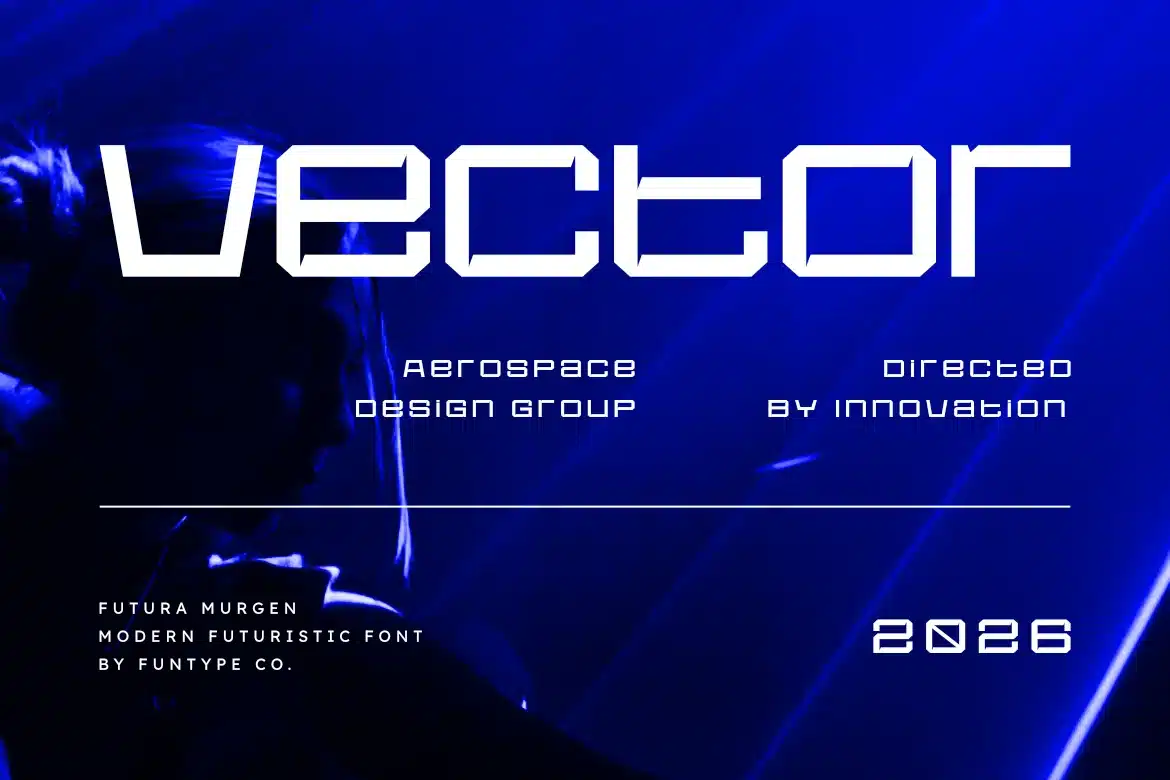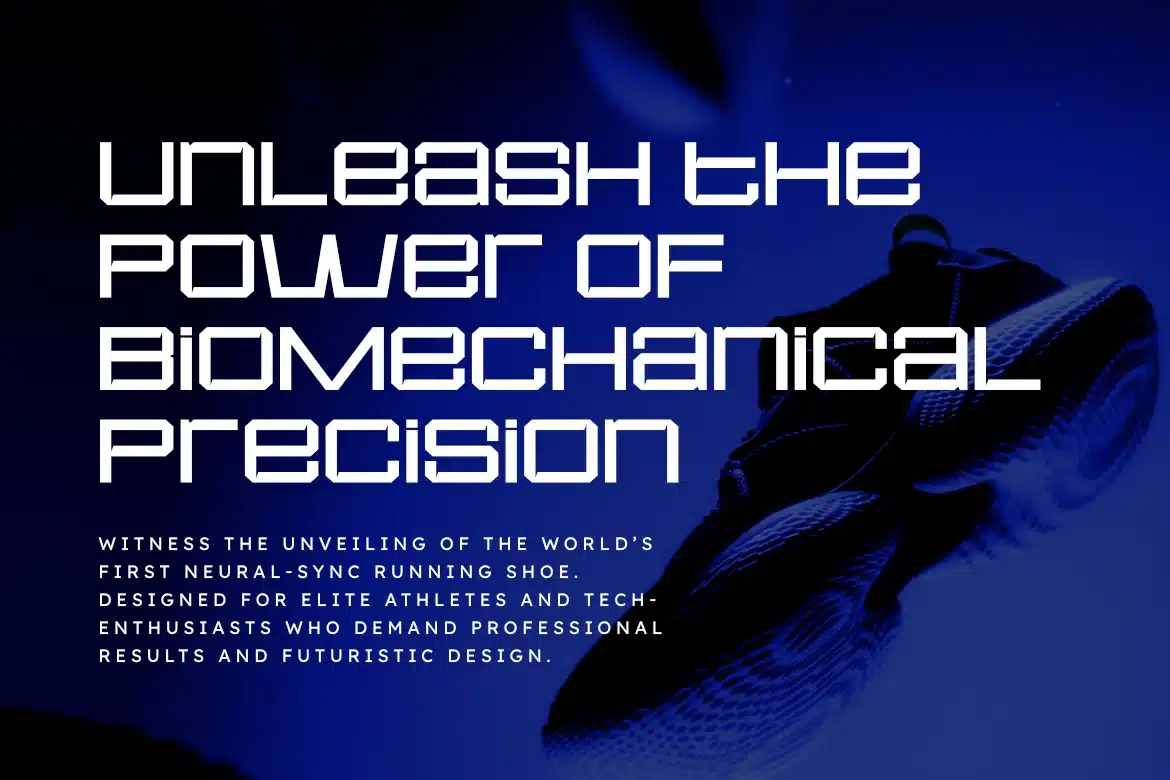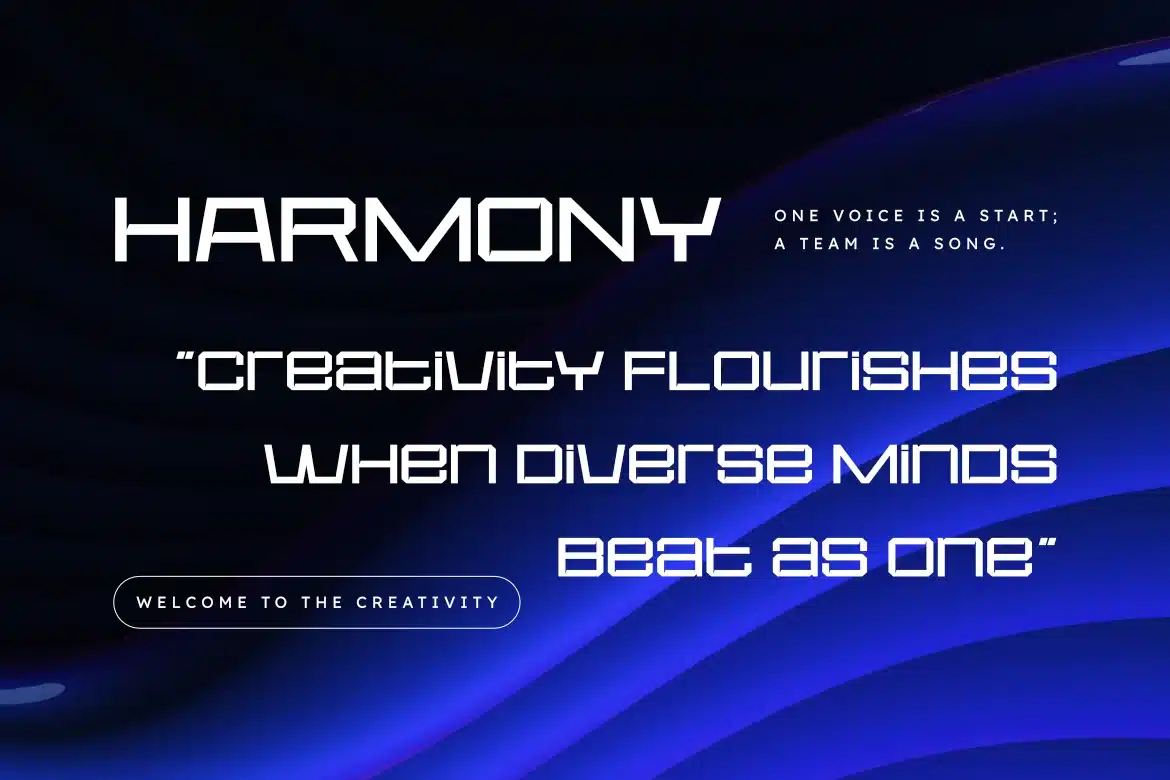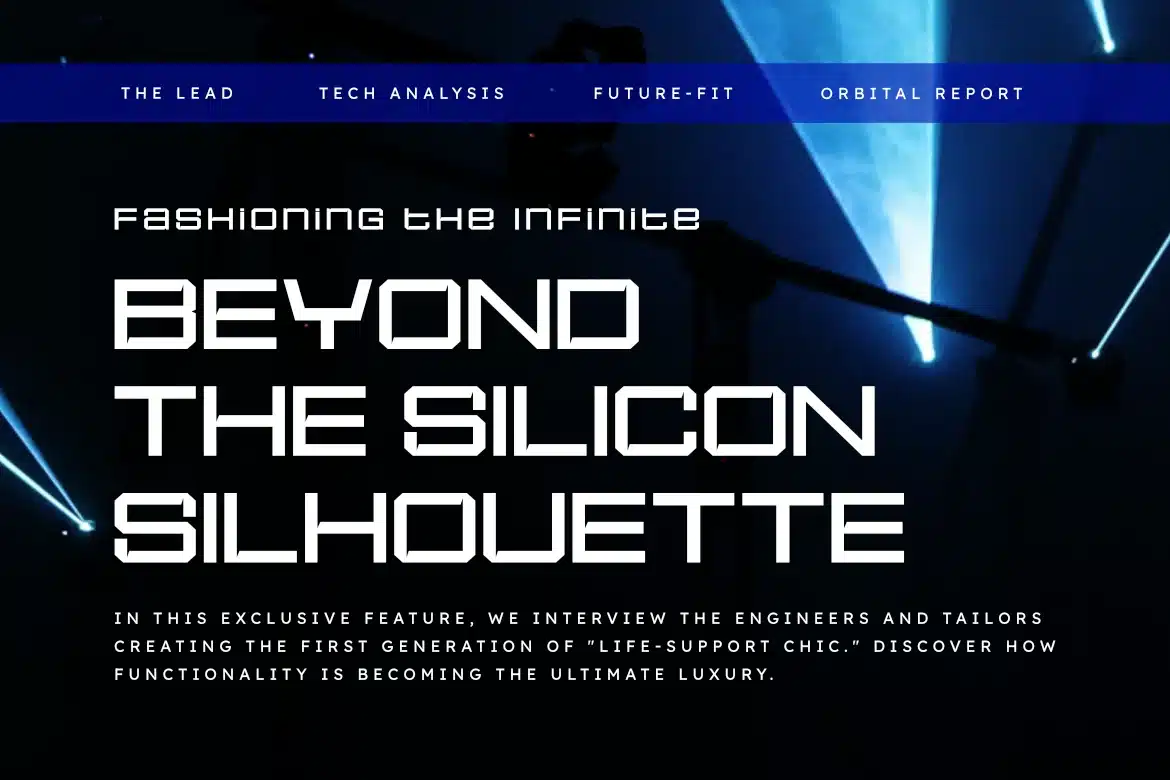
Futura Murgen – Modern Futuristic Font
Futura Murgen is a sophisticated and powerful modern futuristic font, thoughtfully designed to capture the essence of contemporary impact and sci-fi storytelling. With its bold geometric structure and clean, innovative lines, Futura Murgen offers a professional aesthetic that brings a touch of commanding presence to any creative project.
This font is the ideal choice for designers looking to add a professional yet high-impact touch to their work. Whether you are crafting a striking gaming logo, a sleek technology brand identity, or bold digital displays, Futura Murgen provides a seamless blend of modern edge and digital authority.
Main Features:
- Modern Futuristic Design: Optimized for a bold, advanced, and high-end look.
- Unique Geometric Detail: Meticulously crafted for superior visibility and a tech-driven feel.
- Commanding Presence: Perfect for cinematic titles, gaming, and large displays.
- Professional Aesthetic: High-end finish for modern tech and industrial identity design.
Best Used For:
Gaming logos, tech startup branding, futuristic user interfaces (UI), cinematic titles, automotive design, and modern electronic music posters.